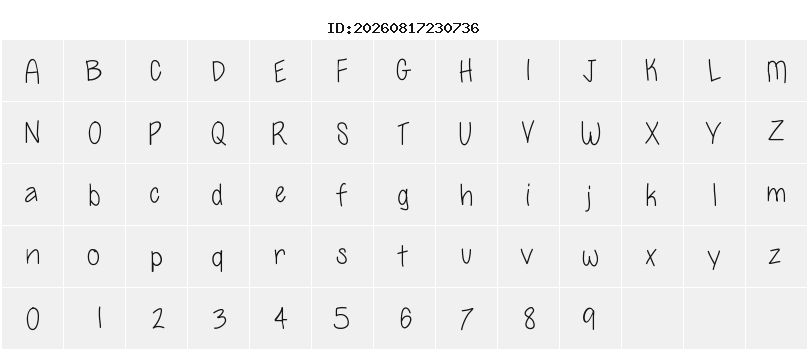
• Font Name: SoPosh
• Full Font Name: SoPosh
About SoPosh.ttf
SoPosh.ttf is a modern, elegant sans-serif font designed for ultimate readability and visual harmony. Perfect for branding, headlines, web design, and print materials.